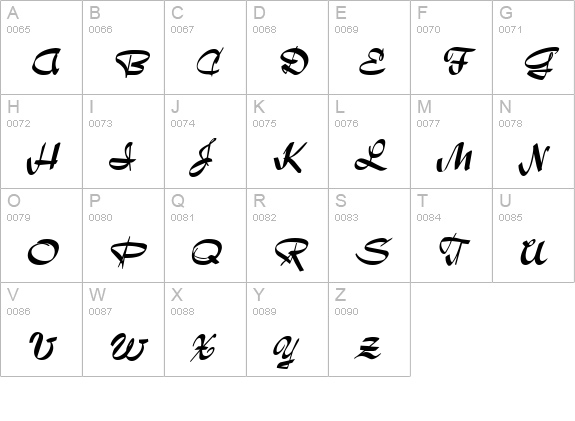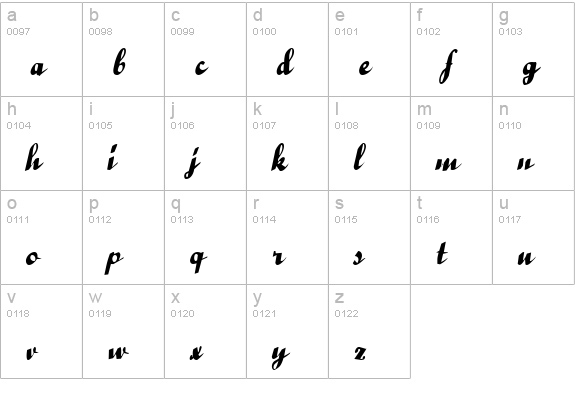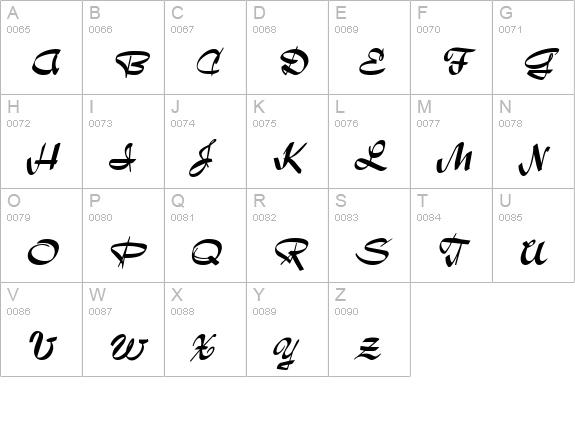
Bailey Italic Font Details
Bailey Italic is a distinctive, italic variant in the Bailey typeface family \xE2\x80\x94 well suited to design and typography projects.
Bailey Italic is a charming and elegant font that exudes sophistication and style. Its graceful curves and subtle slant give a sense of refinement and class to any design project. With a touch of modernity and a hint of classic flair, Bailey Italic is perfect for adding a touch of timeless elegance to your work. This versatile font is ideal for a wide range of applications, from wedding invitations to branding materials and everything in between. Its sleek and stylish appearance makes it a popular choice for designers looking to elevate their projects to the next level. The best part? Bailey Italic is completely free to download at FontsMarket.com. Now you can access this beautiful font without any cost, making it a valuable addition to your design toolkit. Don't miss out on the opportunity to enhance your projects with the timeless beauty of Bailey Italic. Download it today and elevate your designs to new heights.